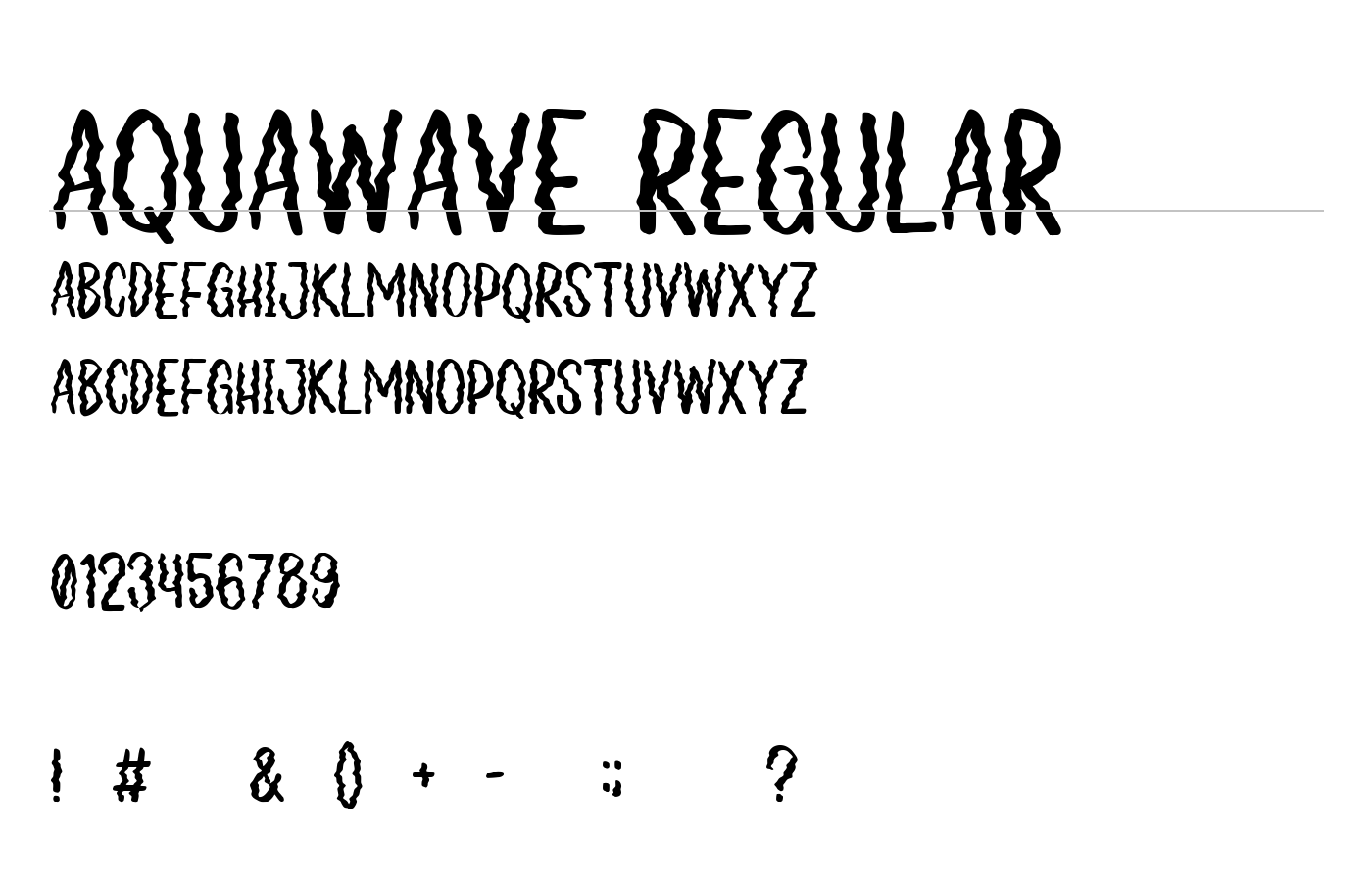
Aquawave is a unique, decorative sans serif font with wavy, irregular strokes that give it an organic, hand-drawn feel. Its tall, narrow letterforms and uneven edges evoke a playful yet slightly eerie aquatic vibe, making it ideal for creative projects related to water themes, Halloween, or informal branding. This font works best for eye-catching headlines, logos, and posters where a distinct, dynamic style is desired.
Aquawave Font
About Aquawave Font
| Designer | Mikro Type Std |